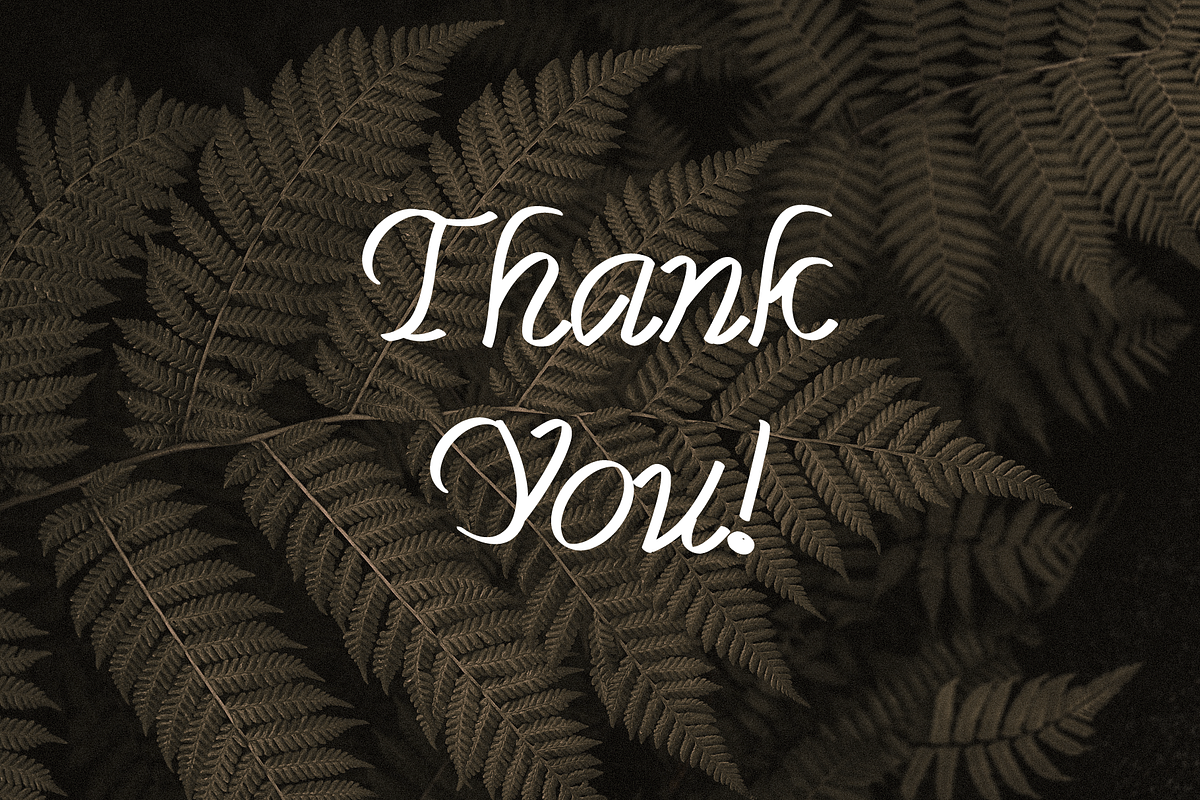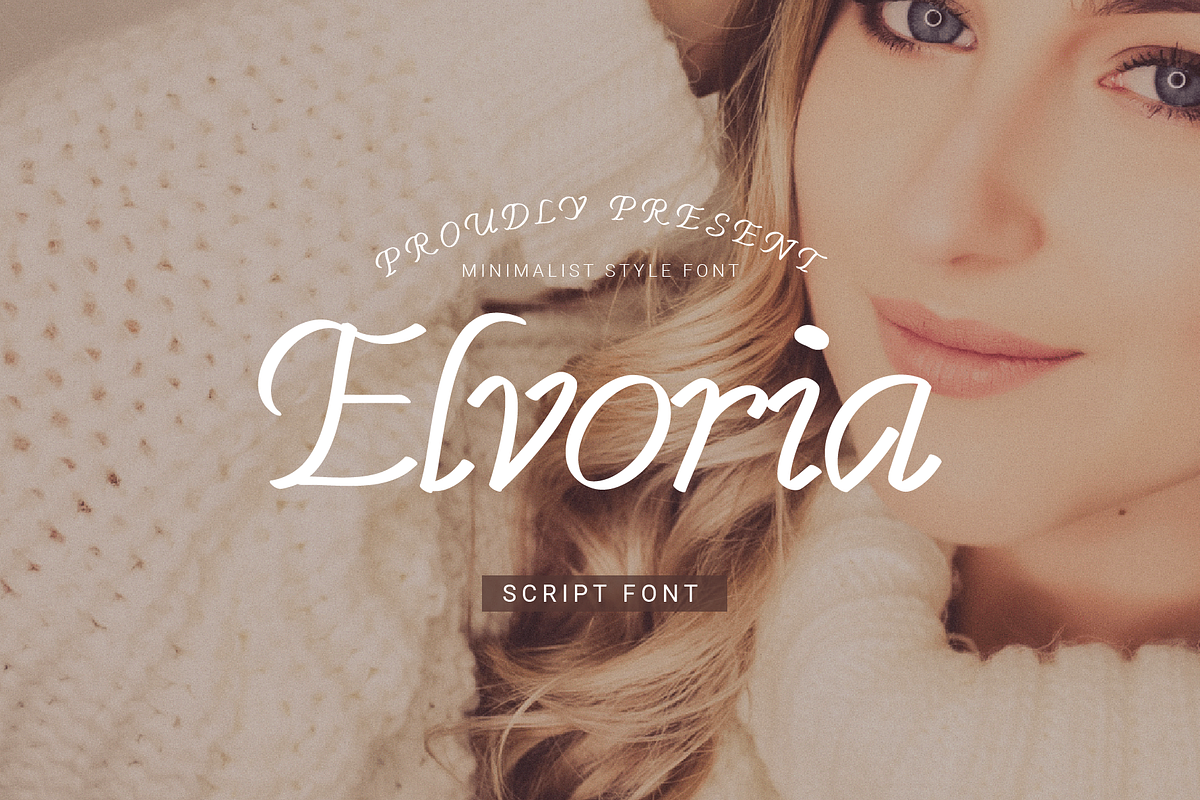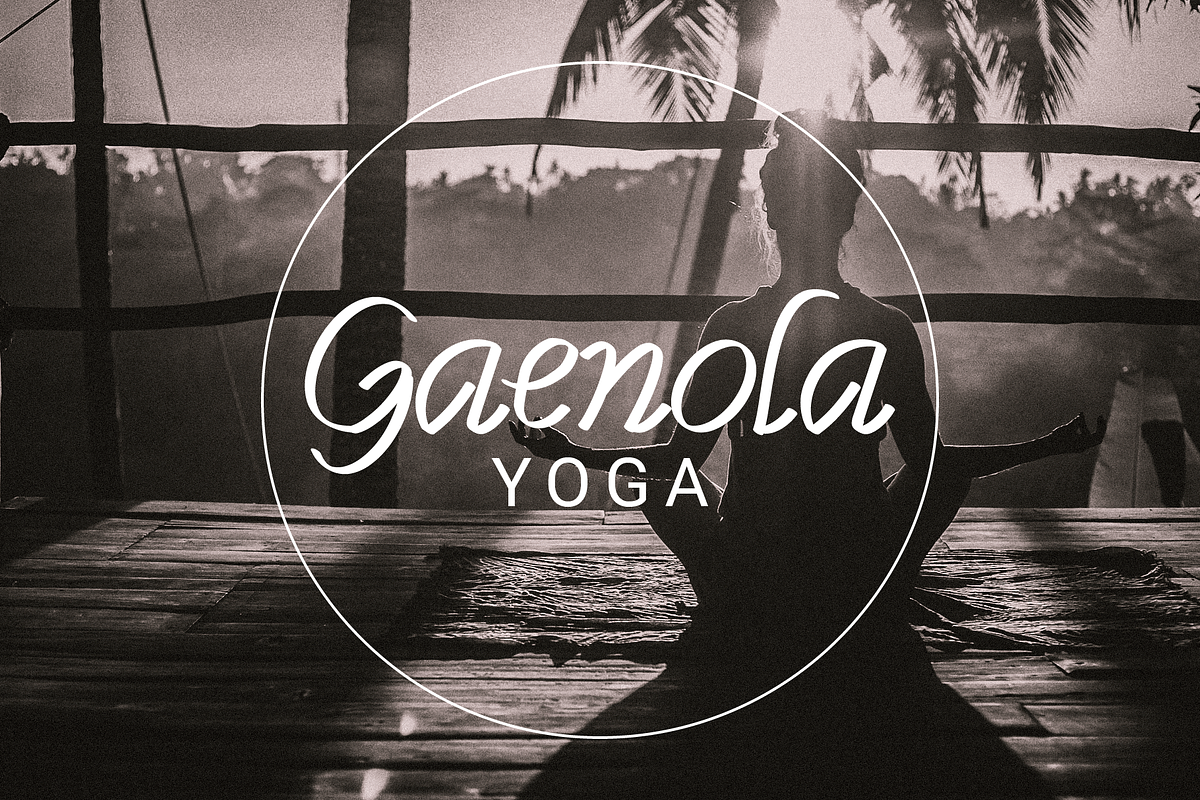
Elvoria Script Font
Elvoria is a new addition to the world of typography. This font is casual, friendly, and perfect for any kind of creative endeavor you may be using.
Contains all capital letters, numbers, and basic punctuation.